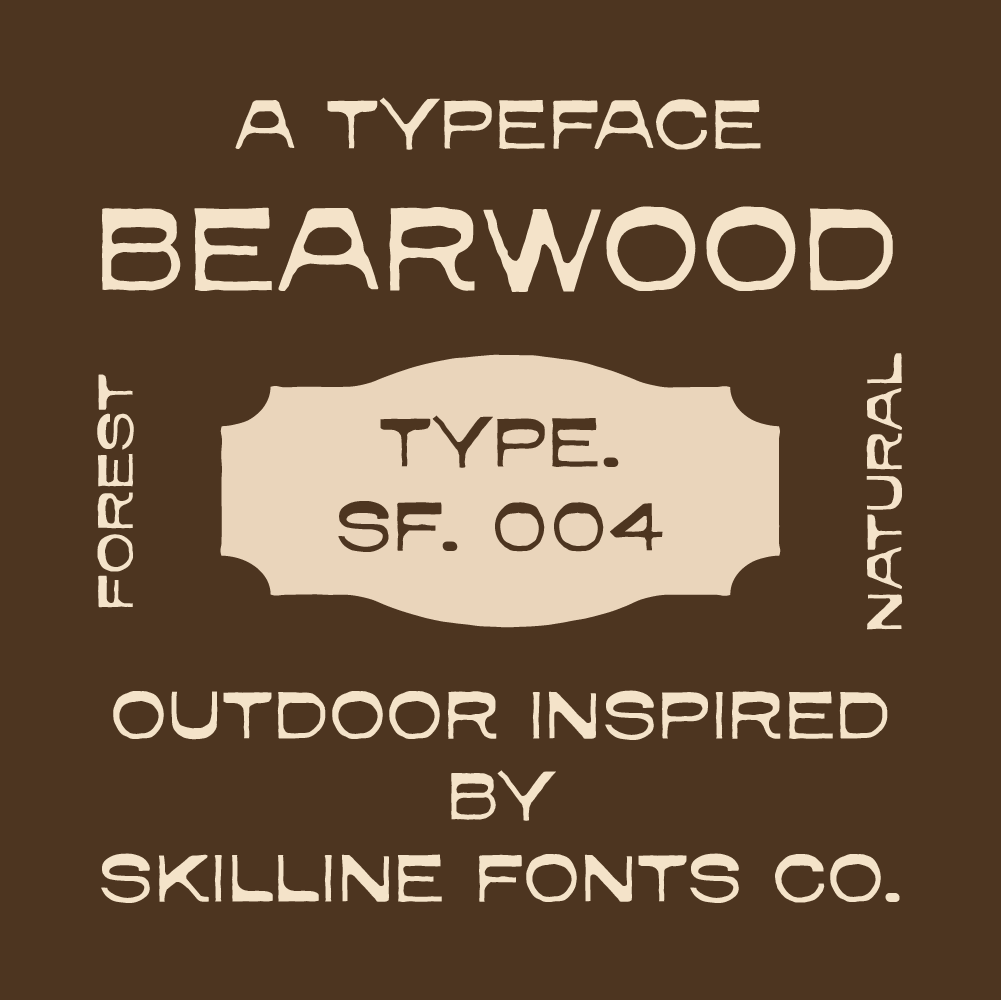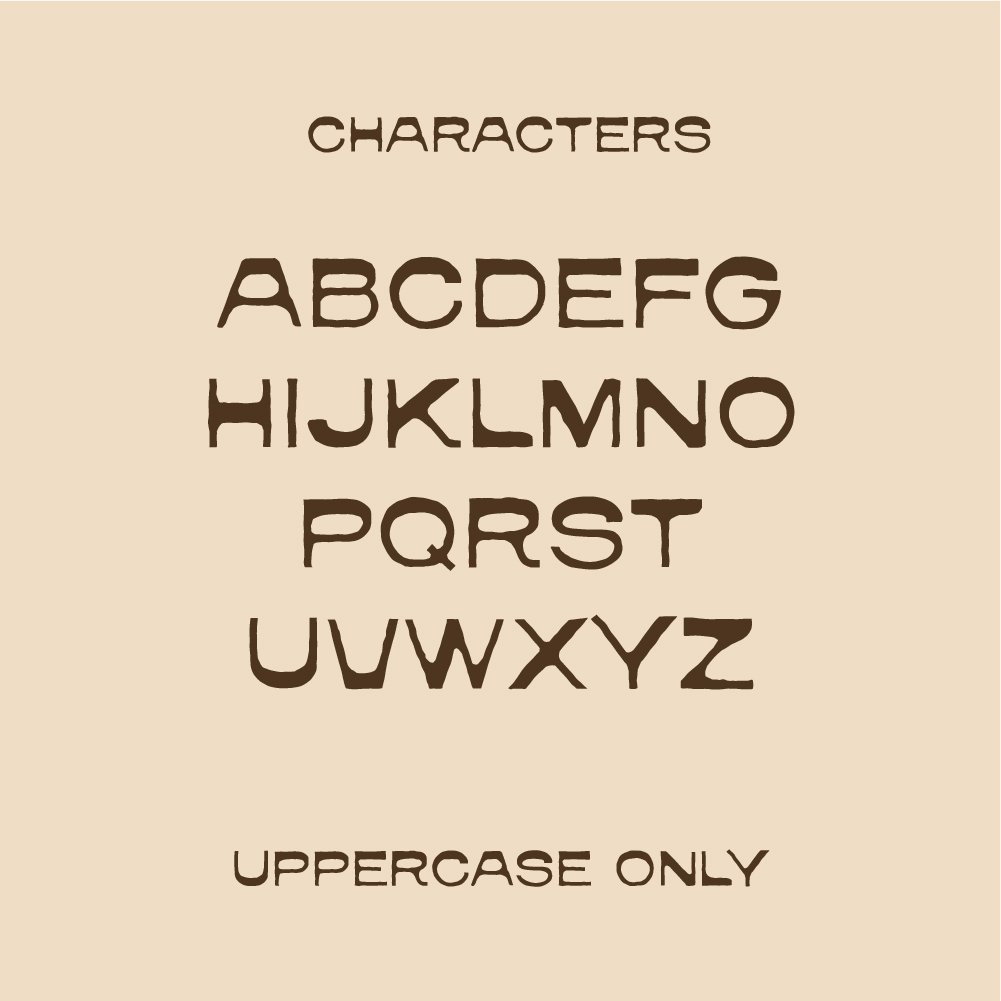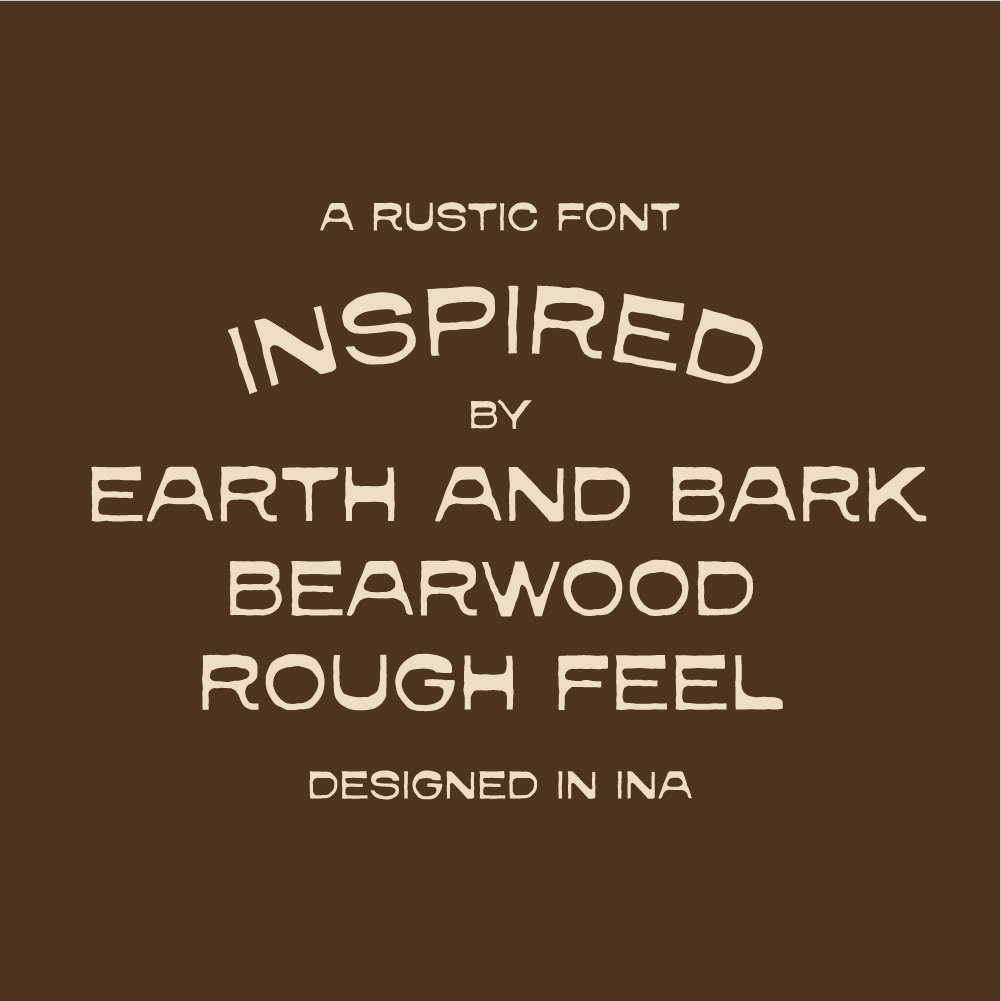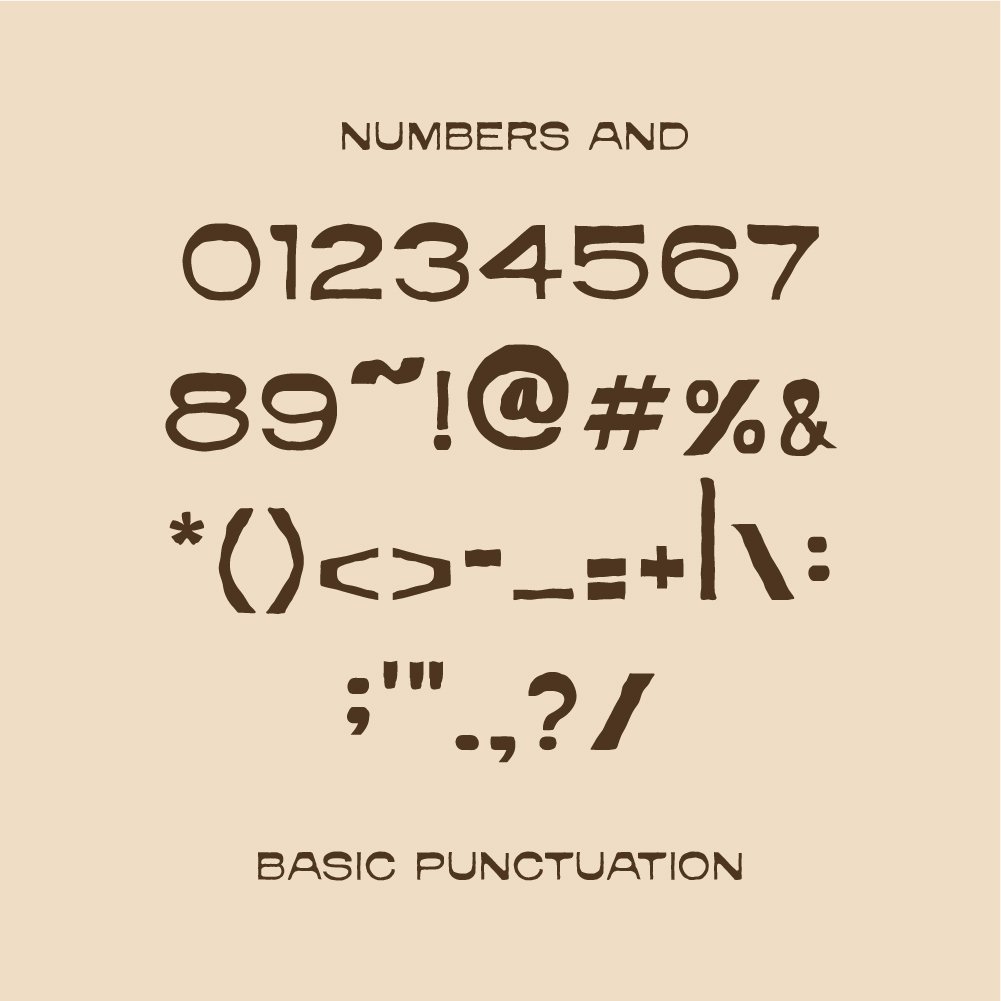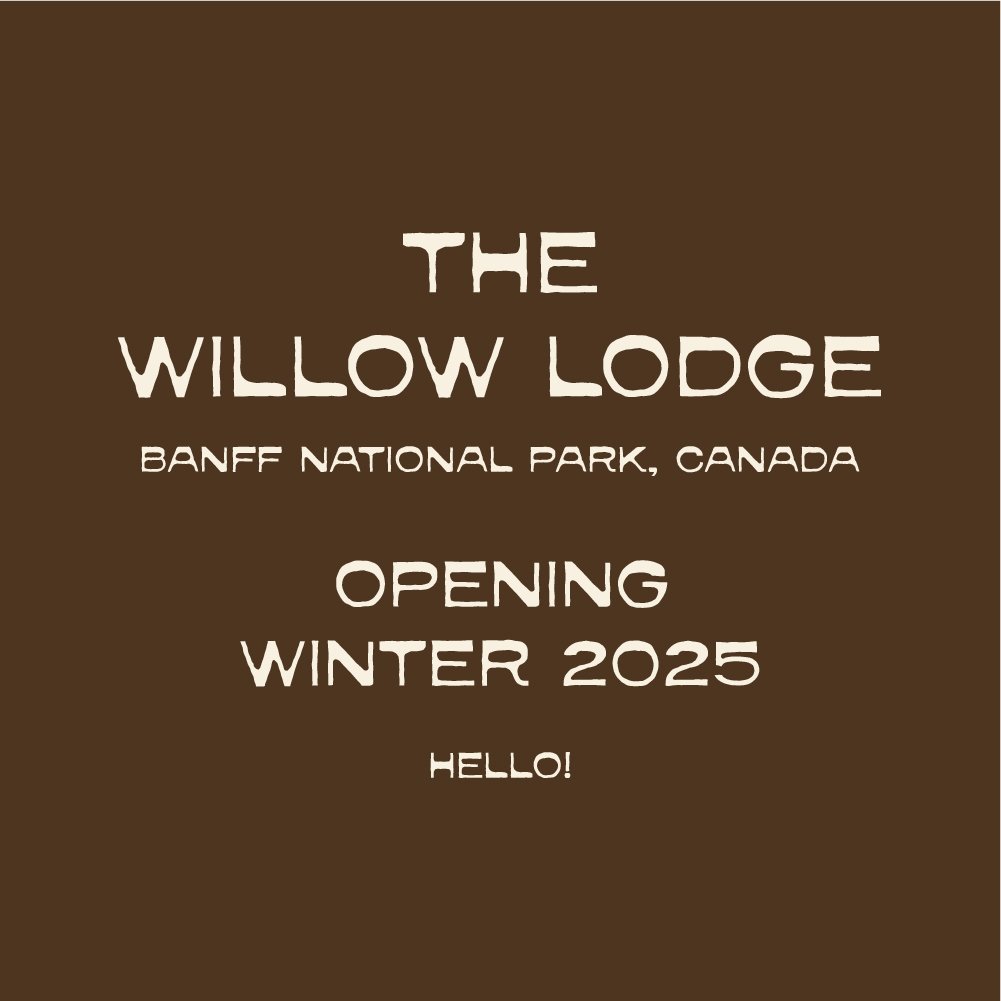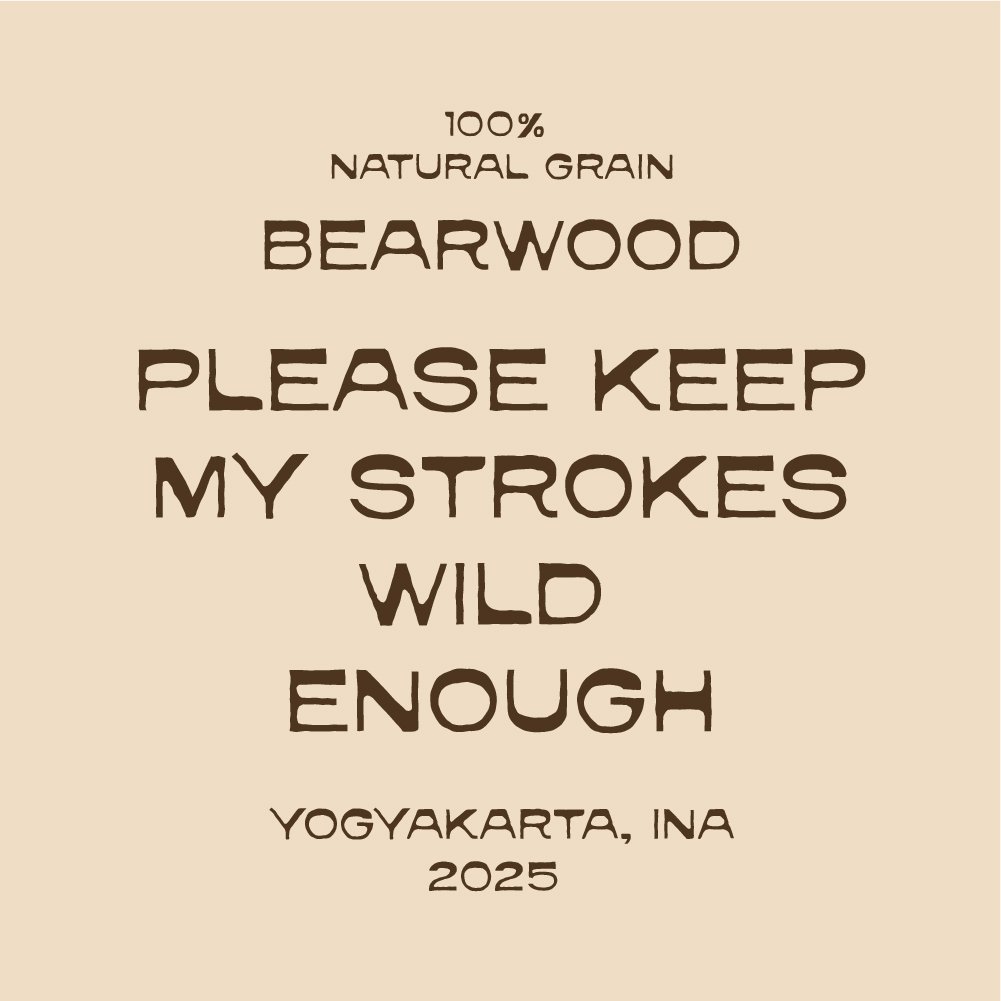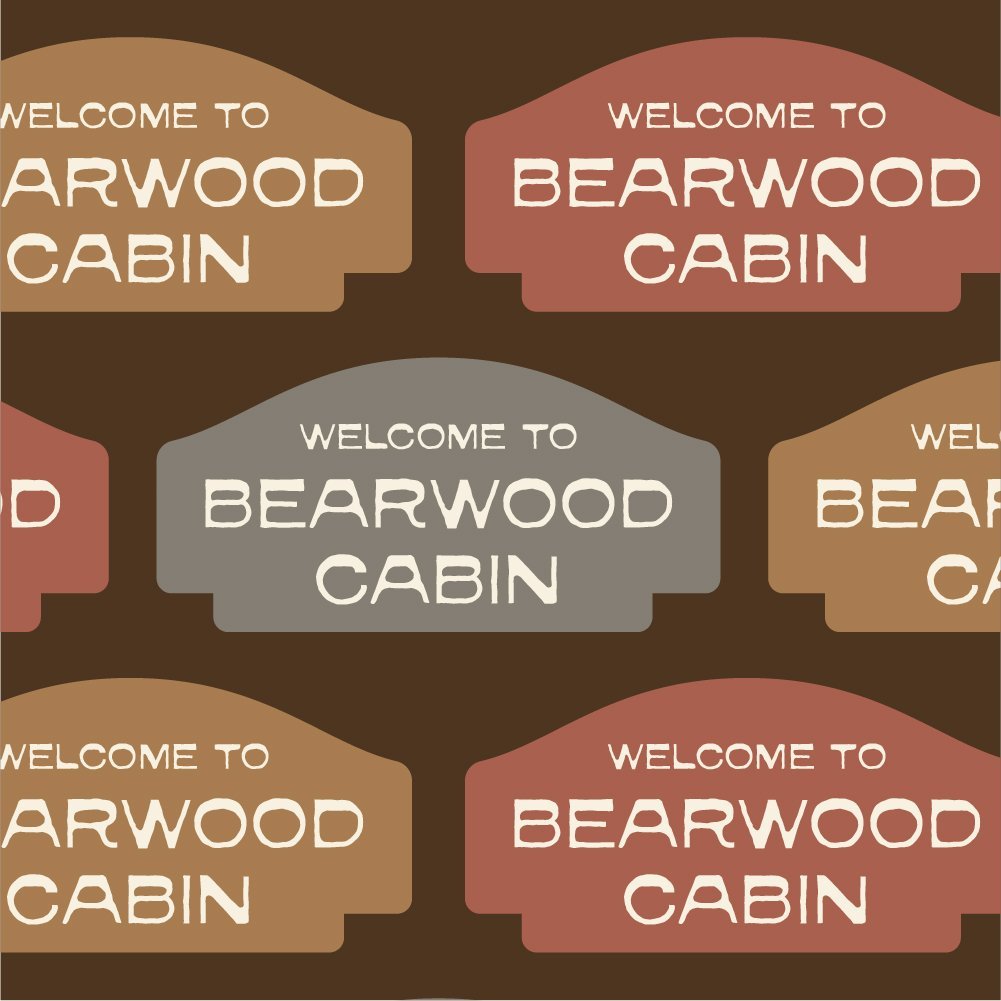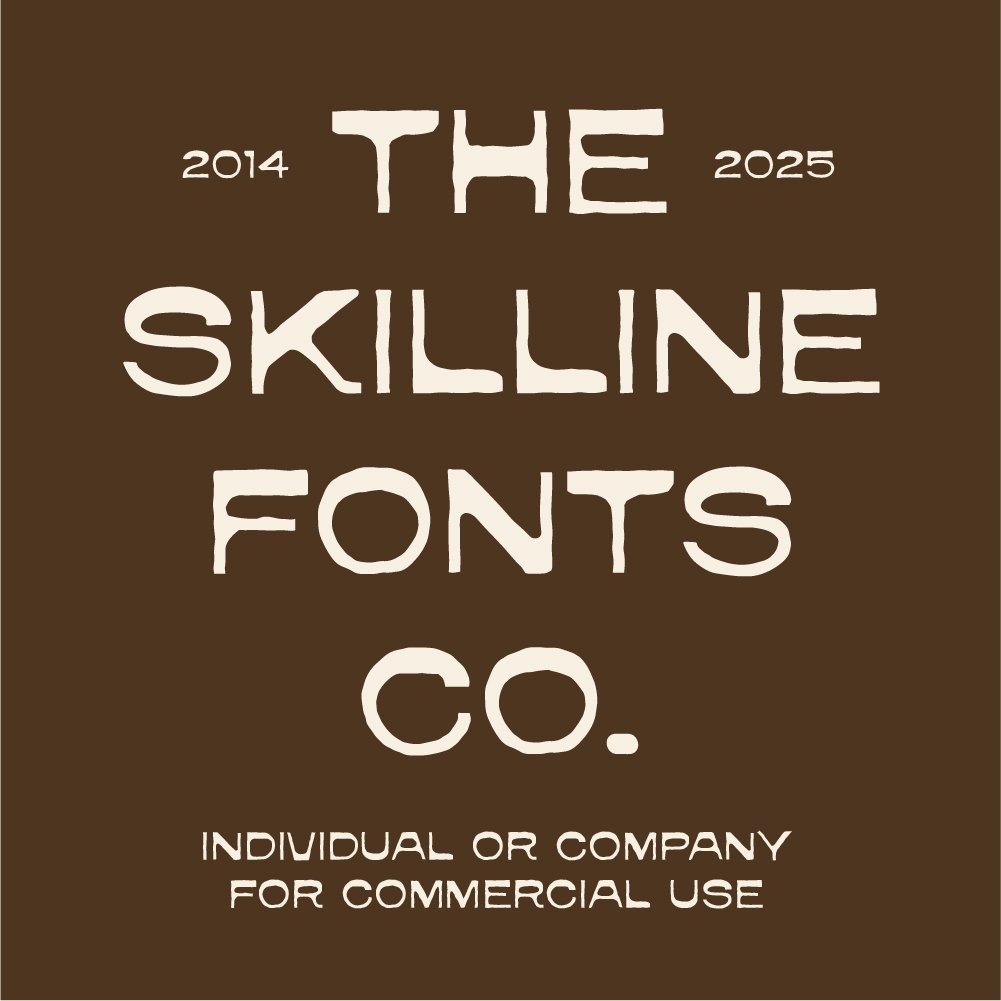
SFC Bearwood
Bearwood is a rugged and organic display typeface inspired by vintage signage and outdoor lettering. Featuring handcrafted strokes, natural edges, and a bold yet approachable feel, it brings a rustic character that feels authentic and timeless. Inspired by classic hand lettering, Bearwood stands out with strong personality while remaining versatile for both modern and heritage-inspired designs.
• All Caps Typeface
• Handcrafted Display Letterforms
• Basic Numerals & Punctuation
• Multilingual Support